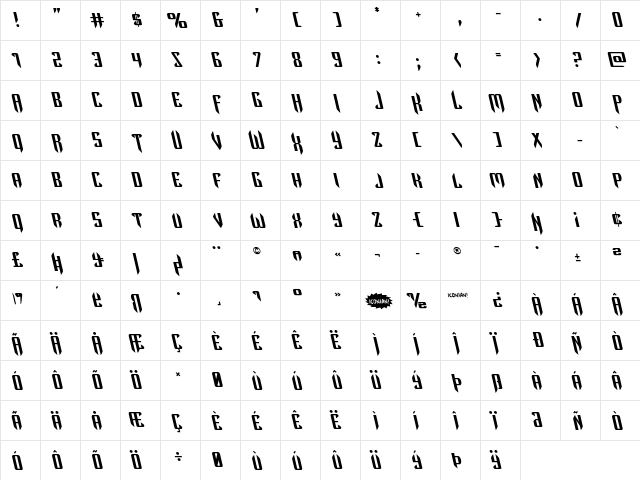
The Immortal Leftalic Italic
Design Context for The Immortal Leftalic Typeface
The Immortal Leftalic is a composed and adaptable typeface that performs quietly and consistently across a wide range of design contexts. The dynamic lean of this cut emphasises speed and emphasis in any layout.
Pro Tip: Try The Immortal Leftalic for annotation and caption copy alongside an upright companion — the contrast in angle creates a dynamic but ordered typographic system.